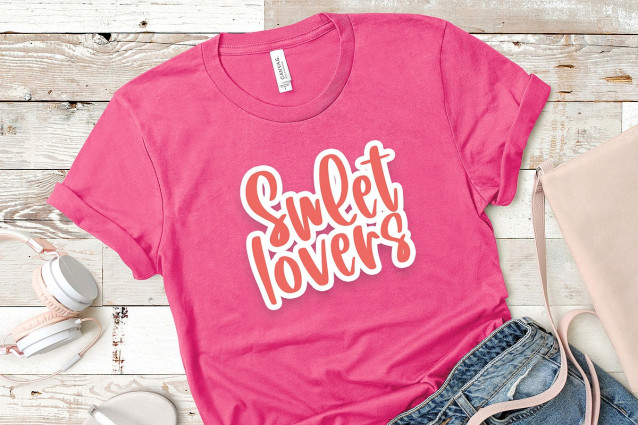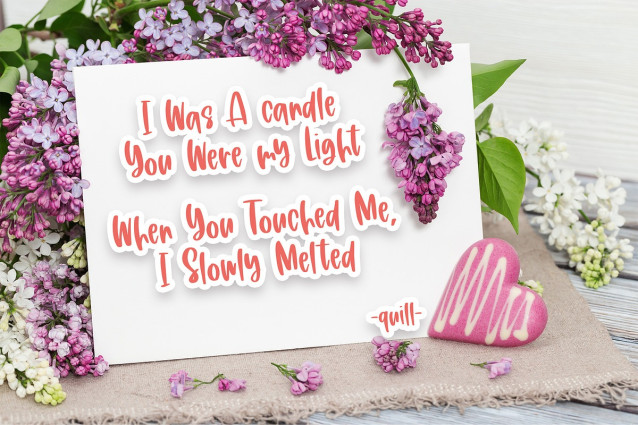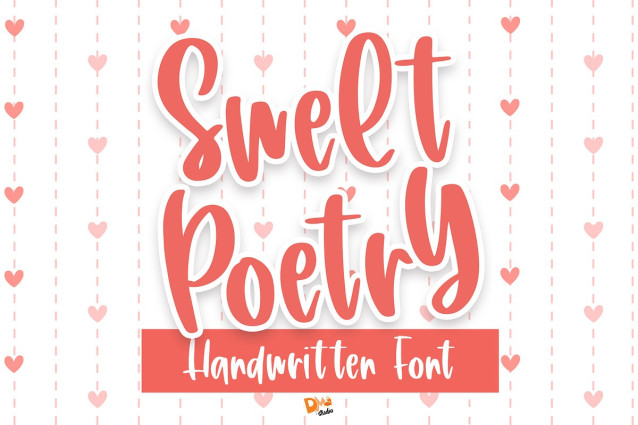
Sweet Poetry Font
Sweet Poetry Font is a graceful and elegant typeface that brings a touch of romance and sophistication to your design projects. With its fluid letterforms and delicate details, this font is perfect for wedding invitations, love letters, branding, and other projects that require a blend of sweetness and poise.